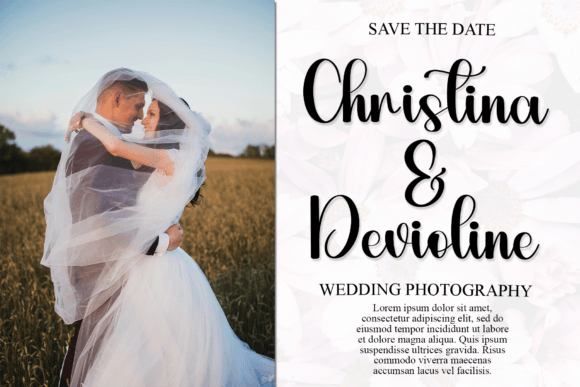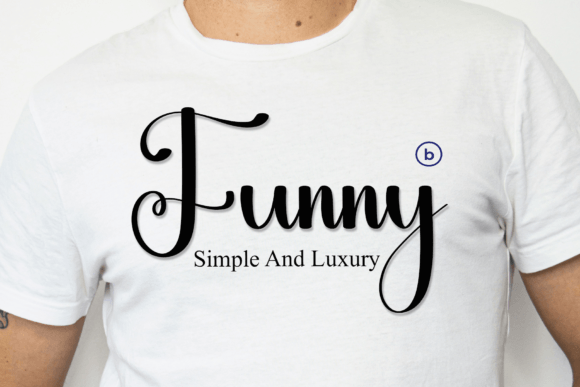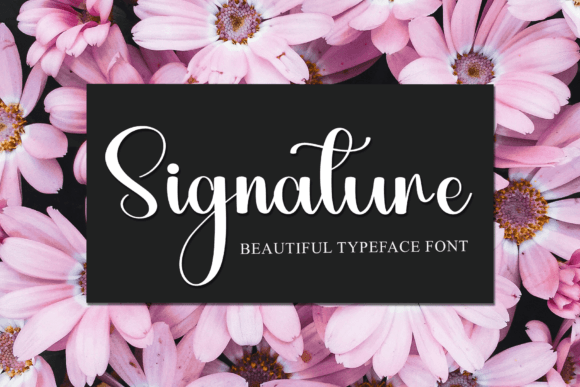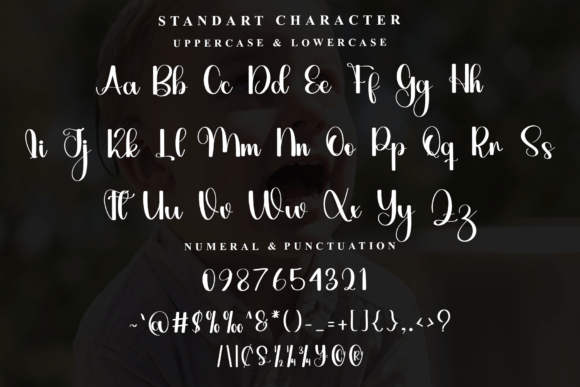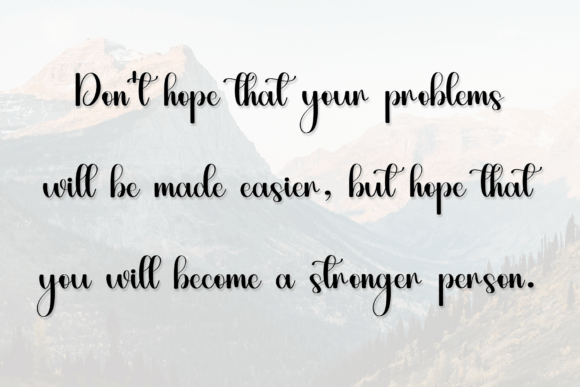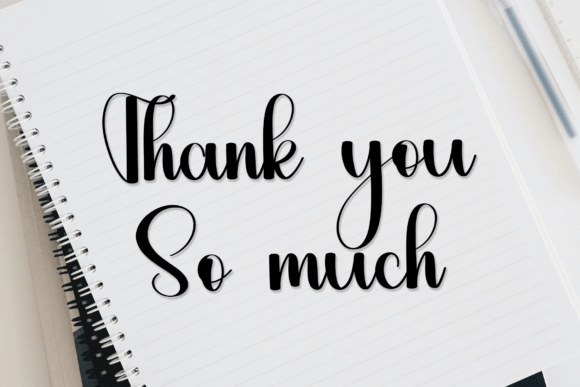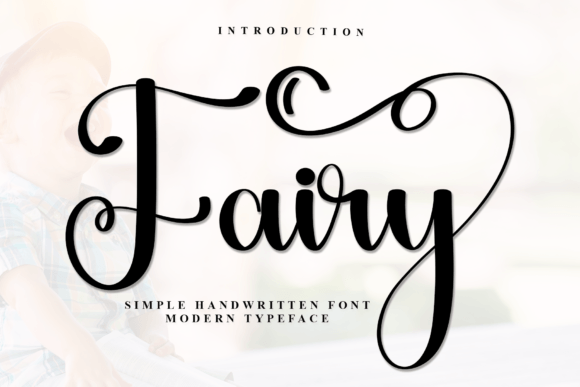
Fairy Font: Add a Touch of Holiday Magic to Your Designs
The holiday season is upon us, and what better way to capture its spirit than with a festive and happy typeface? Look no further than the Fairy Font, a decorative font that brings a touch of charm and nostalgia to your designs. In this article, we’ll dive into the world of Fairy Font, exploring its unique features, uses, and benefits for designers and crafters alike.
What is Fairy Font?
Fairy Font is a beautifully crafted typeface that embodies the joy and cheer of the holiday season. With its intricate details and unique flair, this font is perfect for adding a touch of magic to your designs. Whether you’re creating greeting cards, gift labels, or holiday-themed projects, Fairy Font is sure to bring a smile to your audience’s faces.
Key Features of Fairy Font
- Decorative Elements: Fairy Font boasts an array of decorative elements that add a touch of whimsy to your designs. From intricate swirls to festive flourishes, this font has everything you need to create visually stunning projects.
- PUA Coded: Fairy Font is PUA (Private Use Area) coded, making it easy to access all the amazing glyphs and ligatures. This means you can effortlessly incorporate the font’s special characters into your designs, without any hassle.
- Unique Flair: Fairy Font’s unique flair sets it apart from other typefaces. Its distinctive style adds a touch of personality to your designs, making them stand out from the crowd.
Uses for Fairy Font
Fairy Font is incredibly versatile, making it perfect for a wide range of design projects. Here are some ideas to get you started:
- Greeting Cards: Create festive holiday cards that will delight your friends and family. Fairy Font’s decorative elements and cheerful vibe make it perfect for Christmas, Hanukkah, or any other holiday greeting.
- Gift Labels: Add a touch of magic to your gift-giving with Fairy Font. Use it to create beautiful labels for presents, treats, or other holiday gifts.
- Holiday-Themed Projects: Fairy Font is ideal for any holiday-themed project, from party invitations to festive flyers. Its unique flair and decorative elements will add a touch of whimsy to your designs.
Fairy Font offers a range of benefits for designers and crafters, including:
- Easy to Use: Fairy Font is incredibly easy to use, even for those with limited design experience. Its PUA coding makes it simple to access the font’s special characters, and its unique flair adds a touch of personality to your designs.
- Time-Saving: With Fairy Font, you can create stunning designs in no time. Its decorative elements and unique flair save you time and effort, allowing you to focus on other aspects of your project.
- Customization: Fairy Font’s versatility allows for endless customization options. Experiment with different colors, textures, and design elements to create a unique look that reflects your personal style.
Tips and Tricks for Using Fairy Font
To get the most out of Fairy Font, here are some tips and tricks to keep in mind:
- Experiment with Colors: Fairy Font looks stunning in a range of colors, from traditional holiday hues like red and green to more modern shades like pastel pink and turquoise.
- Mix and Match: Combine Fairy Font with other fonts or design elements to create a unique look. Its decorative elements and unique flair make it perfect for pairing with simpler typefaces.
- Don’t Overdo It: While Fairy Font is perfect for adding a touch of magic to your designs, be careful not to overdo it. Balance the font’s decorative elements with more straightforward text to create a visually appealing design.
In conclusion, Fairy Font is a beautifully crafted typeface that captures the spirit of the holiday season. With its decorative elements, unique flair, and PUA coding, it’s perfect for designers and crafters looking to add a touch of charm and nostalgia to their designs. Whether you’re creating greeting cards, gift labels, or holiday-themed projects, Fairy Font is sure to bring a cheerful and festive atmosphere to your words.